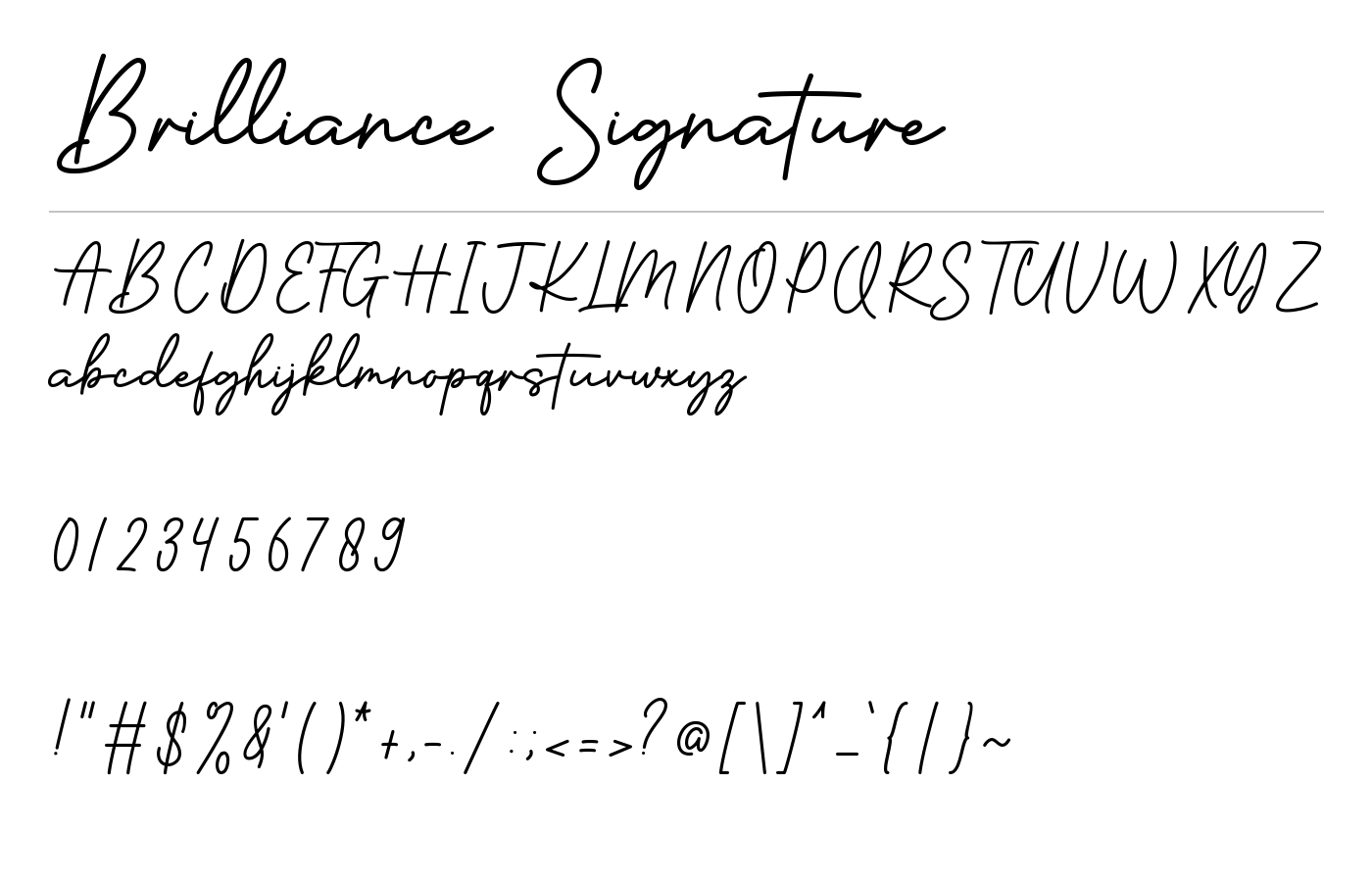
Brilliance Signature is a delicate, handwritten script font with a light weight and elegant, flowing strokes that mimic natural penmanship. Its tall, slender letterforms and smooth curves give it a sophisticated, modern feel, making it perfect for branding, invitations, and any design that seeks a personal yet refined touch. This font works beautifully in logos, headlines, and stylish packaging where a graceful, approachable elegance is desired.
Brilliance Signature Font
About Brilliance Signature Font